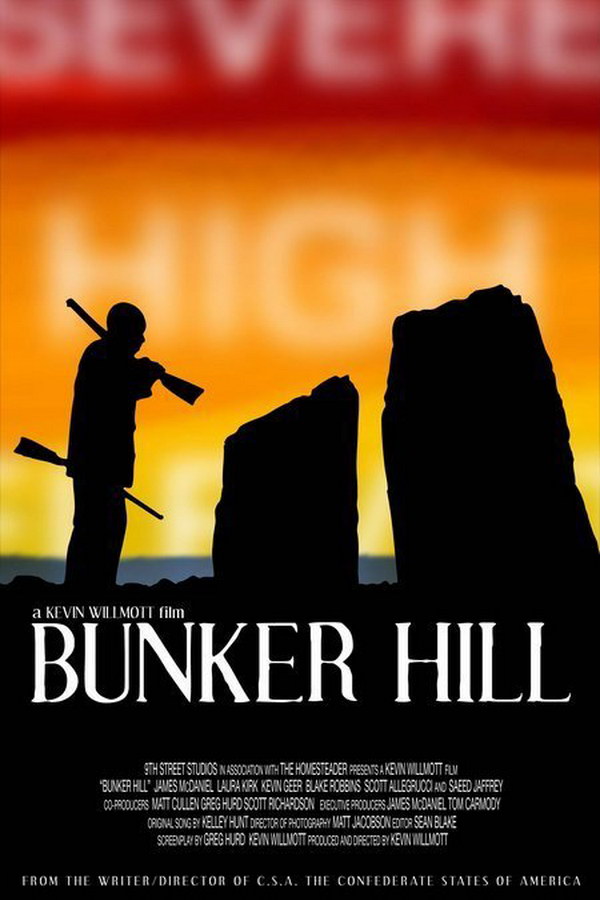
Bunker Hill Font
The movie poster for "Bunker Hill" likely features the font Effloresce Antique Regular, a condensed display typeface designed by Ray Larabie. For more information, you can explore the details here.